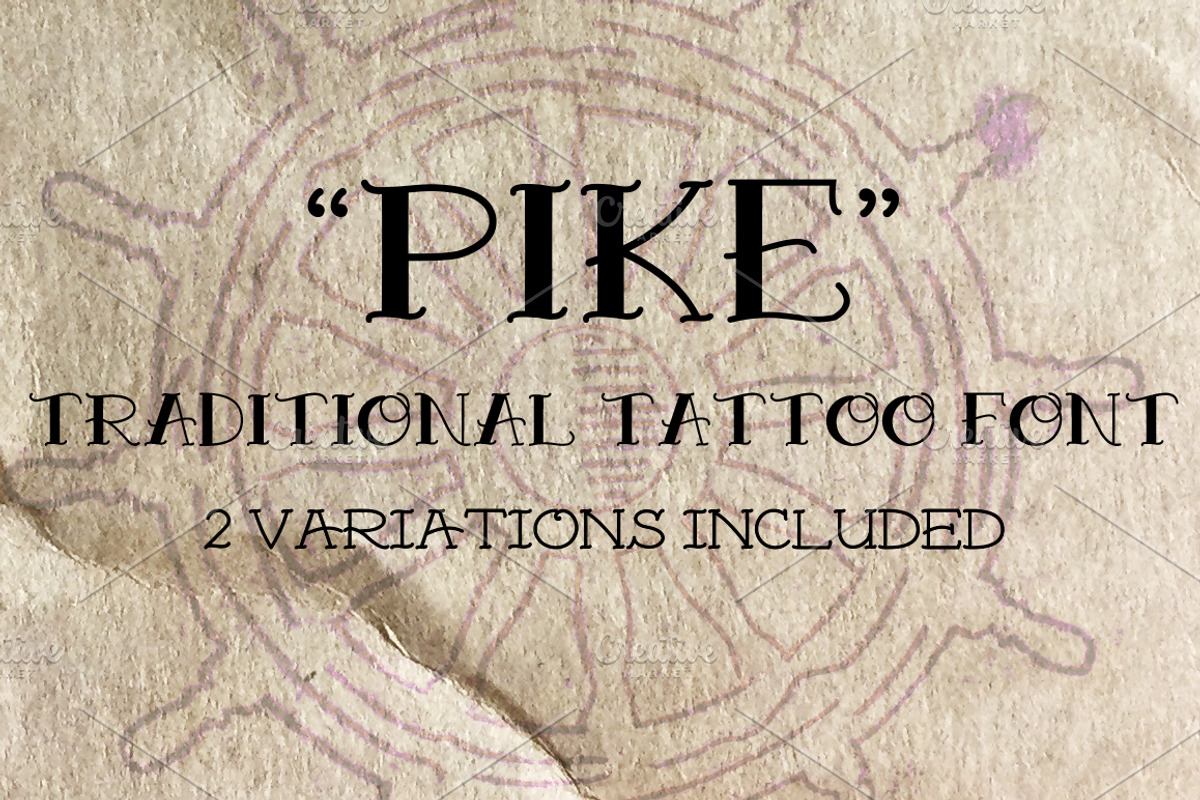
Pike Traditional Tattoo Font Free Download
Pike Traditional Tattoo Font Free Download is a bold, vintage-style typeface inspired by the classic lettering found in old-school American tattoo art. With its sharp serifs, strong structure, and timeless attitude, this font is perfect for tattoo shop branding, merchandise, signage, posters, apparel, and any design that needs a rugged, rebellious edge.
Pike captures the essence of traditional ink culture—bold, readable, and packed with character. Whether you’re going for retro authenticity or just want to add a punch of boldness to your visuals, Pike delivers with style.